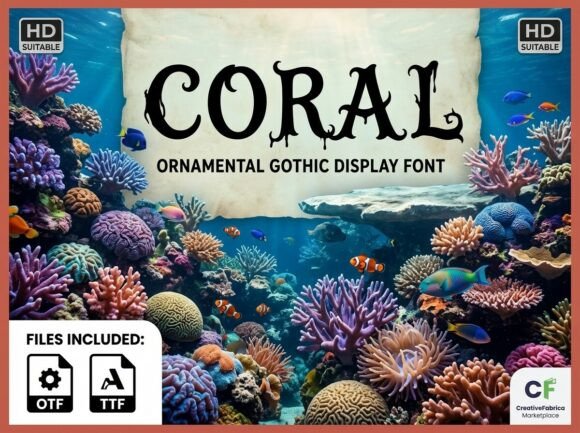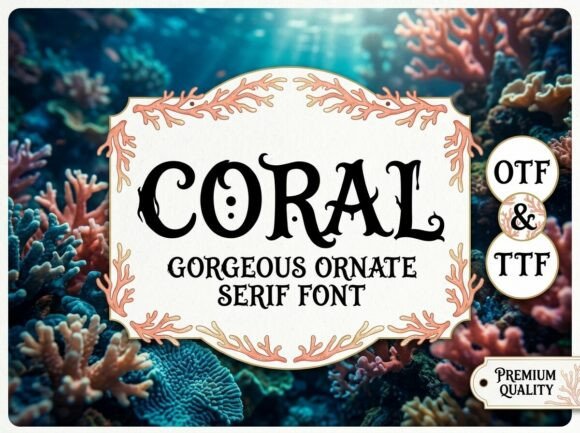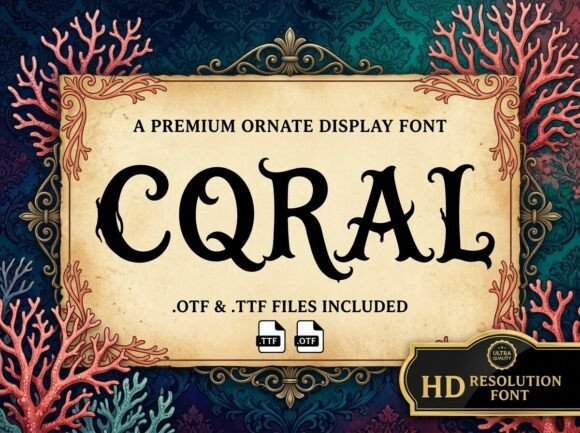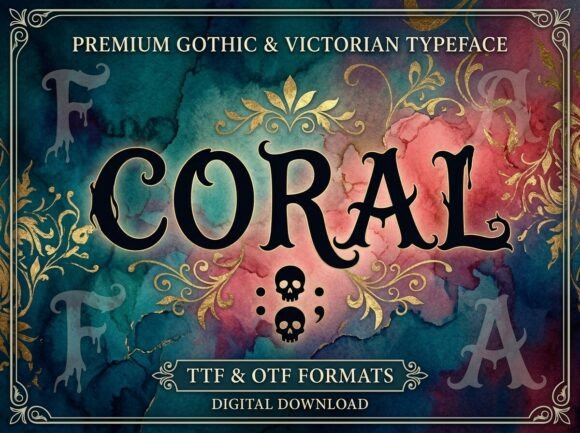
Unveiling Coral Font: The Epitome of Gothic Elegance and Victorian Charm
In the realm of typography, few fonts manage to evoke the essence of mystery, romance, and sophistication as effectively as Coral Font. This premium Gothic and Victorian typeface is a masterful creation, designed specifically for the avant-garde and those who appreciate the beauty of ornate, high-contrast calligraphy. With its sharp, thorny terminals and dramatic, sweeping swashes, Coral Font transports us to a world of moonlit gardens, where the lines between reality and fantasy blur.
The Architecture of Elegance
Coral Font’s sophisticated architecture is a testament to its unique blend of Gothic and Victorian influences. Characterized by “dripping” accents and a skeletal grace, this font exudes an air of polished professionalism and legendary artisanal mystery. Its high-contrast design ensures that every letter stands out with unmatched, atmospheric sophistication, making it an extraordinary choice for designers seeking to add a touch of elegance to their creations.
One of the most striking aspects of Coral Font is its versatility. Whether you’re working on gothic editorial layouts, moody apparel branding, high-end cosmetic packaging, or cinematic fantasy titles, this font is sure to deliver. Its ability to convey a sense of mystery and romance makes it an ideal choice for a wide range of design applications. From the dark, mystical world of gothic fiction to the luxurious realm of high-end cosmetics, Coral Font is the perfect tool for designers seeking to create a lasting impression.
Crafting Atmospheric Sophistication
Coral Font’s dramatic, sweeping swashes and sharp, thorny terminals are more than just aesthetic flourishes; they’re a means of crafting atmospheric sophistication. By incorporating these elements, designers can create headlines that stand out with a sense of elegance and refinement. Whether you’re looking to evoke the mystery of a moonlit garden or the luxury of a high-end brand, Coral Font provides the perfect foundation for your designs.
A Font for the Avant-Garde
Coral Font is more than just a typeface; it’s a statement of intent. Designed specifically for the avant-garde and those who appreciate the beauty of the unconventional, this font is perfect for designers who push the boundaries of creativity. With Coral Font, you can create designs that are truly one-of-a-kind, reflecting your unique perspective and style.
Bringing Your Designs to Life
• Gothic Editorial Layouts: Use Coral Font to create dramatic, eye-catching headlines that evoke the mystery of the gothic world.
• Moody Apparel Branding: Add a touch of elegance and sophistication to your apparel branding with Coral Font’s sweeping swashes and sharp terminals.
• High-End Cosmetic Packaging: Elevate your cosmetic packaging with Coral Font’s luxurious, refined aesthetic.
• Cinematic Fantasy Titles: Create movie titles that transport viewers to a world of fantasy and adventure with Coral Font’s dramatic, atmospheric sophistication.
In conclusion, Coral Font is a premium Gothic and Victorian typeface that offers designers a unique opportunity to add a touch of elegance and sophistication to their creations. With its sophisticated architecture, versatility, and ability to craft atmospheric sophistication, Coral Font is the perfect choice for designers seeking to push the boundaries of creativity. Whether you’re working on gothic editorial layouts, moody apparel branding, high-end cosmetic packaging, or cinematic fantasy titles, Coral Font is sure to deliver a sense of polished professional power and legendary artisanal mystery to your designs.